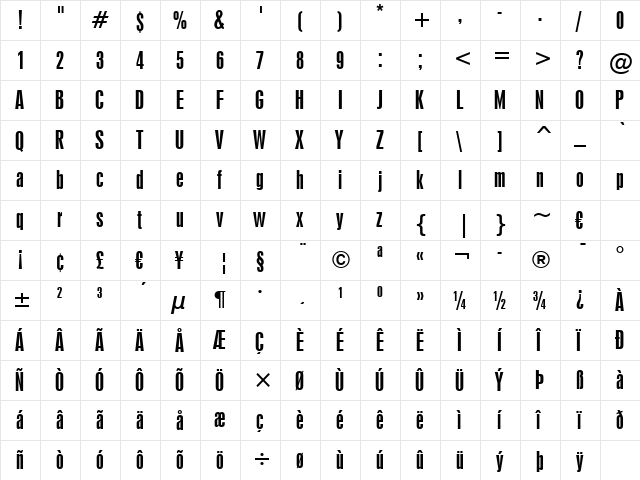
Swiss924 BT Regular
Design Context for Swiss924 BT Typeface
Swiss924 BT takes a measured approach to typography — its balanced proportions and neutral character make it a reliable workhorse for both digital and print work.